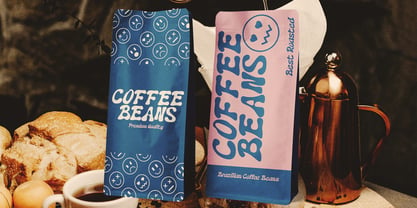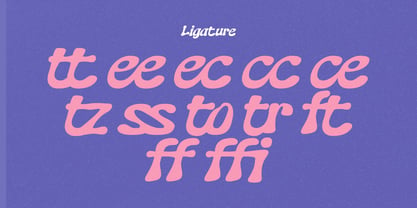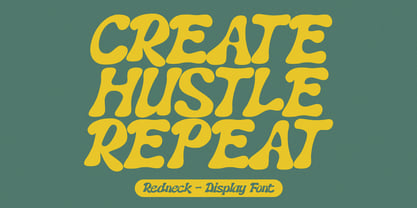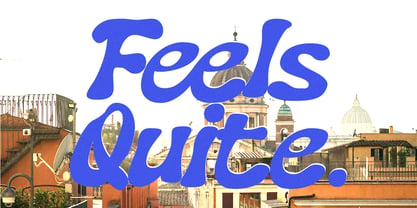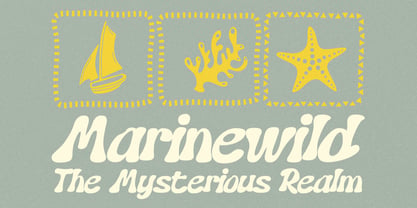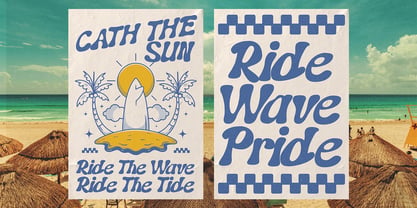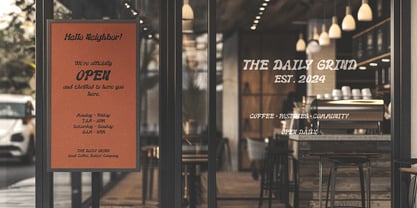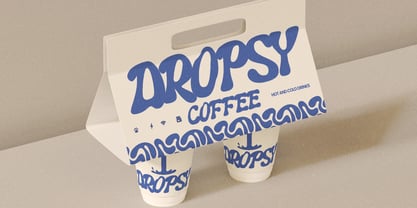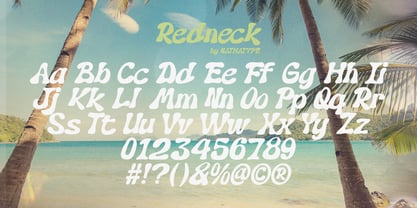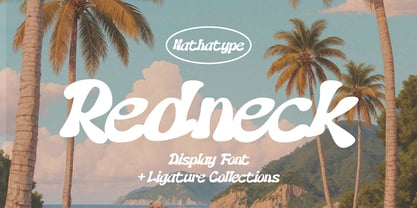
Redneck
by Nathatype
The Redneck Font Family was designed by Donis Miftahudin and published by Nathatype. Redneck contains 1 styles. More about this family
Redneck is a powerful and expressive display font designed to make a strong visual statement. The thick weight of Redneck ensures excellent visibility. Its rounded shapes soften the overall appearance, giving the font a friendly and approachable vibe while still maintaining its strong presence. This balance between bold structure and smooth curves makes Redneck versatile for both playful and rugged design themes. In addition, enjoy the features here. Features: Ligatures Multilingual Supports PUA Encoded Numerals and Punctuations Redneck fits in logos, quotes, branding, posters, and many more designs. Find out more ways to use this font by taking a look at the font preview. Thanks for purchasing our fonts. Hopefully, you have a great time using our font. Feel free to contact us anytime for further information or when you have trouble with the font. Thanks a lot and happy designing.
Designers: Donis Miftahudin
Foundry: Nathatype